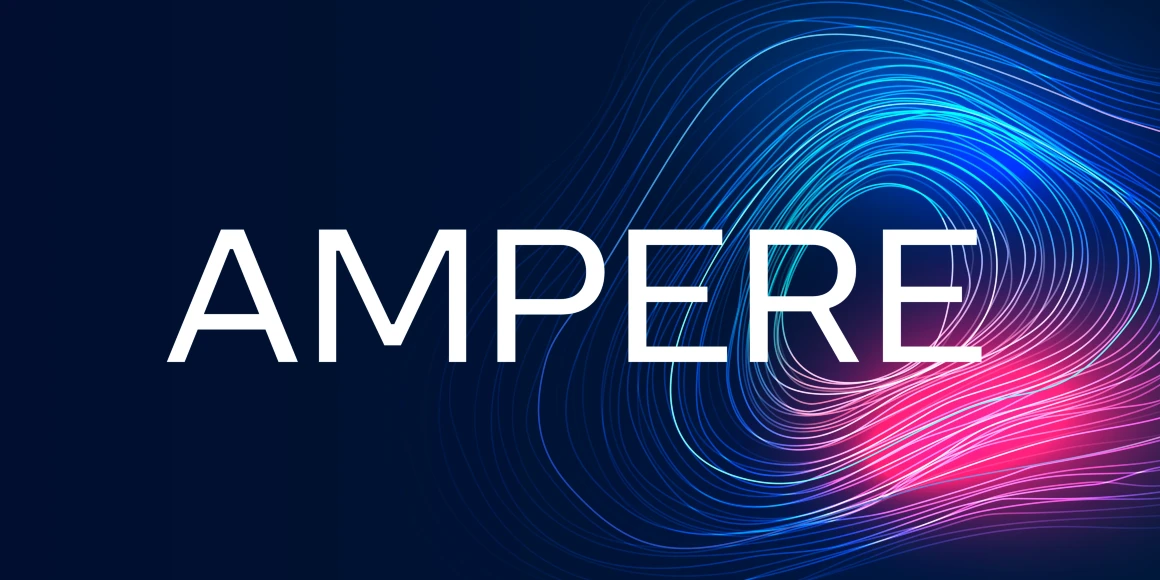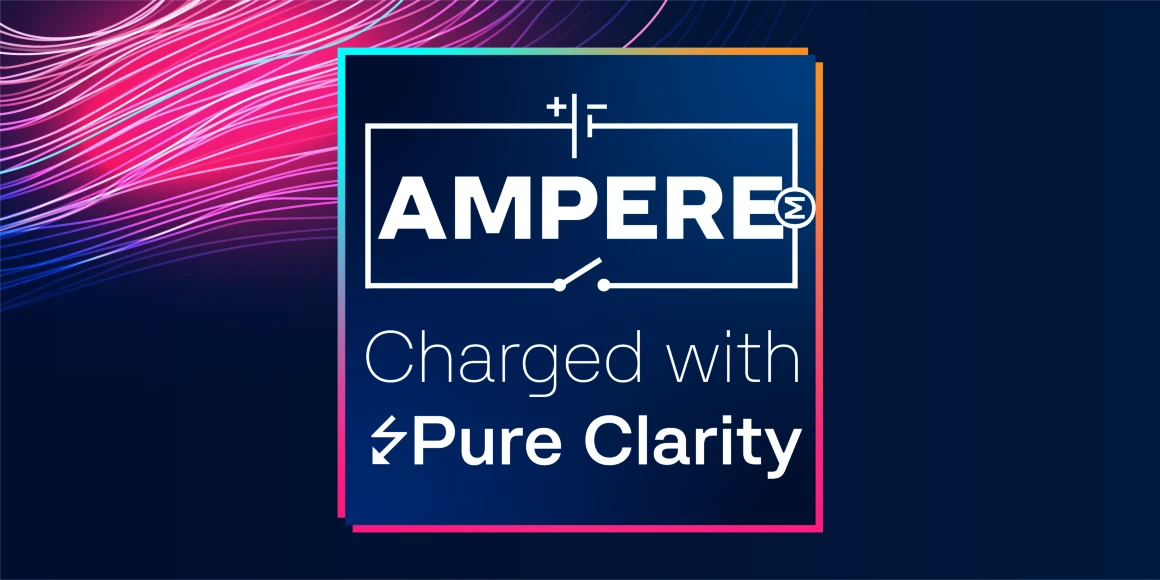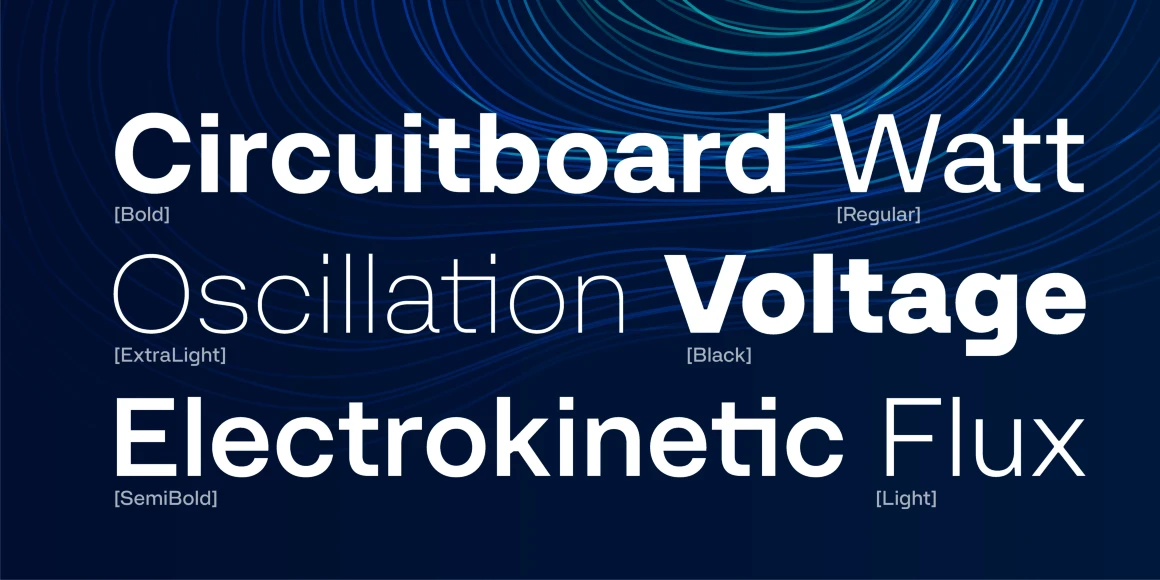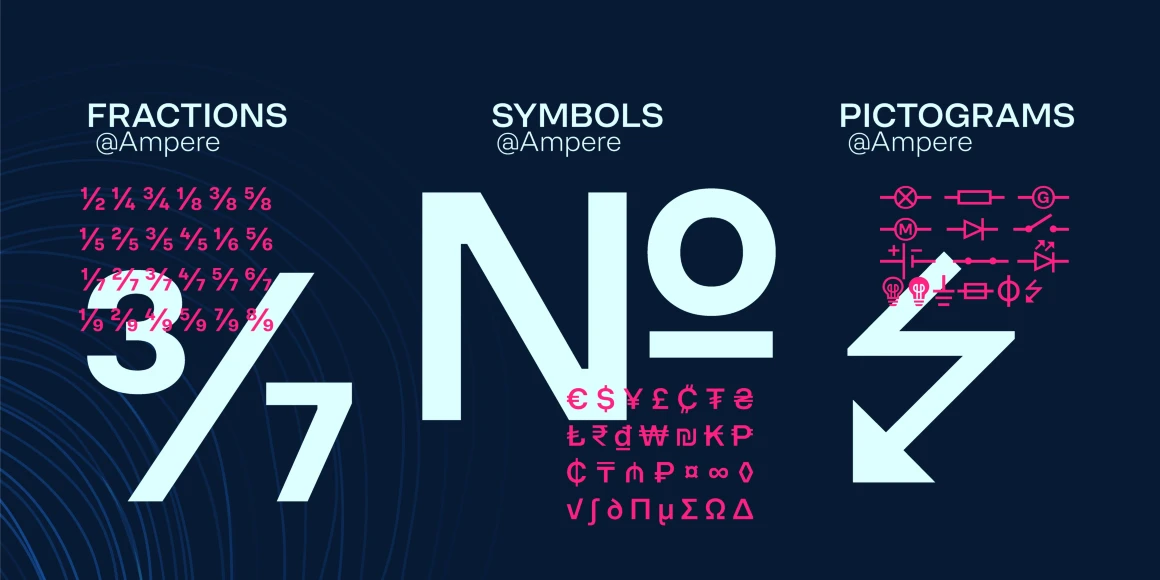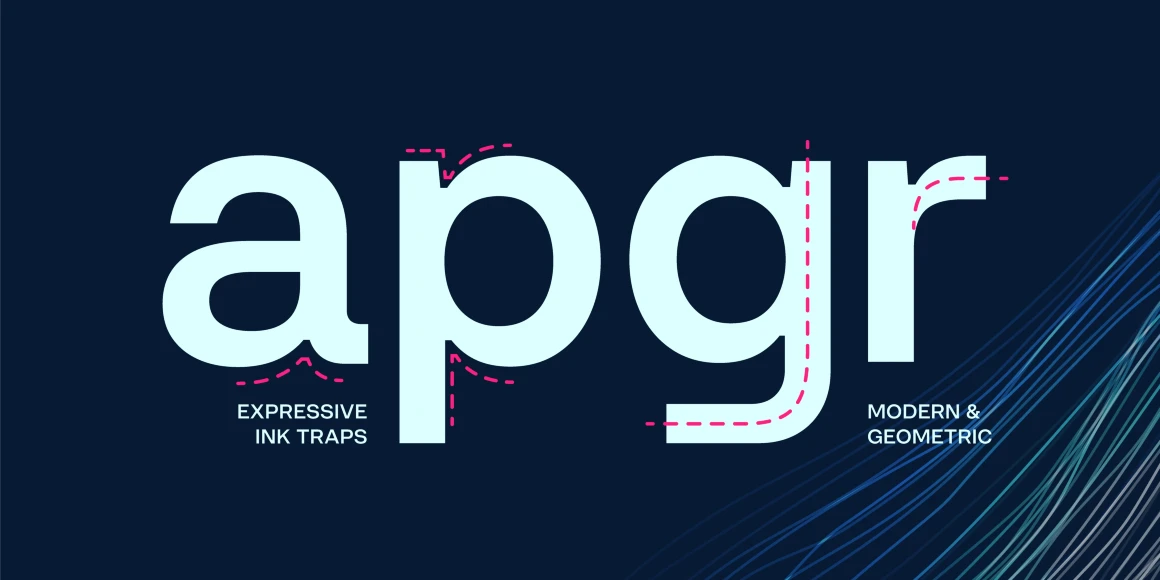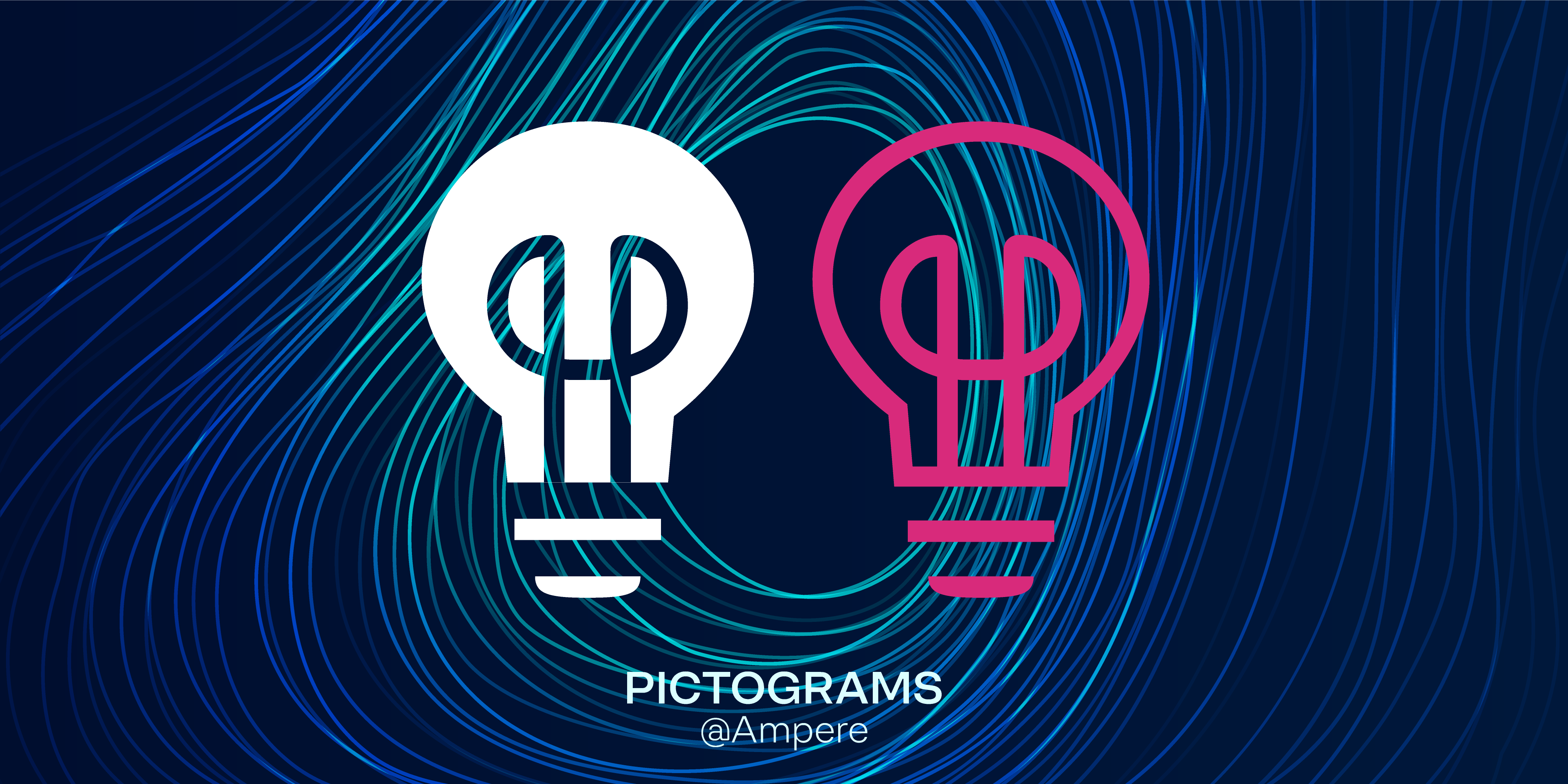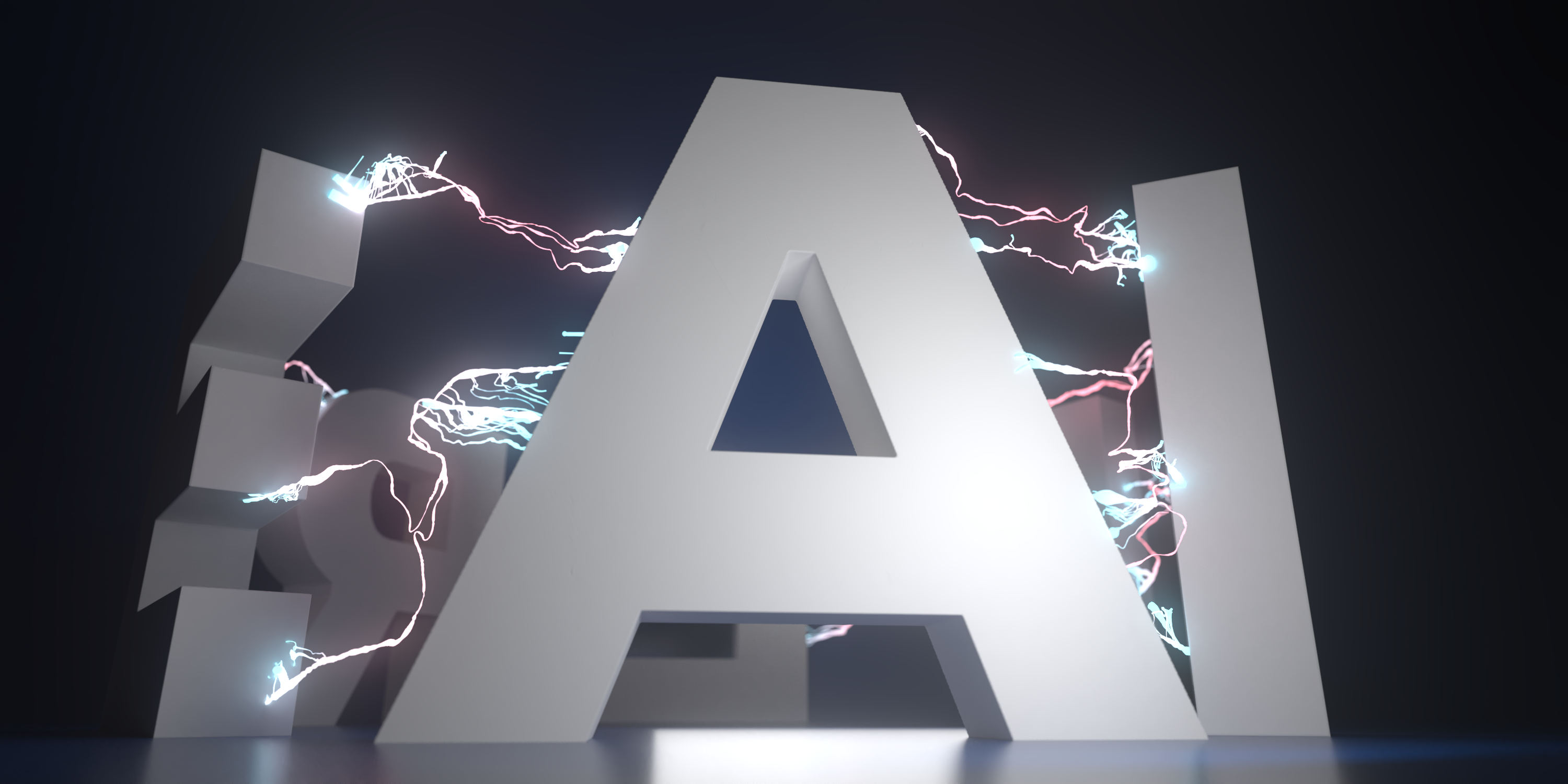
Ampere
Ampere is sleek geometry with uncompromising clarity, its grid-like precision reflecting a modern design ethos. Crisp at small sizes and commanding at large, it suits immersive reading and bold headings alike. Squared ink traps soften sharp angles for a smooth finish, while special “electric” characters and ligatures add energy, harmony, and personality. With six weights from ExtraLight to Black, Ampere offers versatility, sophistication, and a subtle spark to any project.